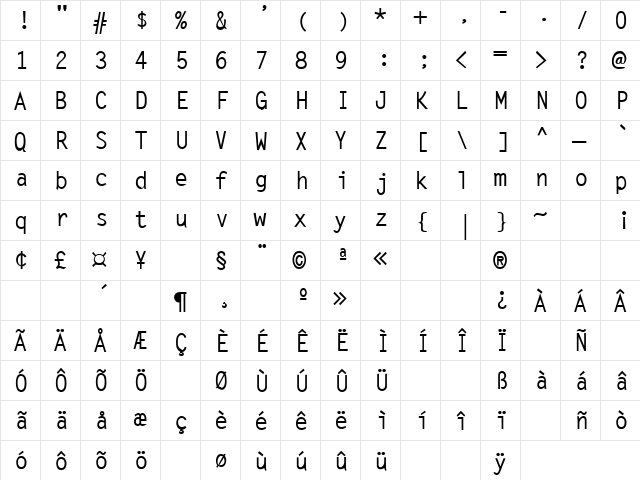
Celebration Day 5 Regular
Design Context for Celebration Day 5 Typeface
Celebration Day 5 takes a measured approach to typography — its balanced proportions and neutral character make it a reliable workhorse for both digital and print work.